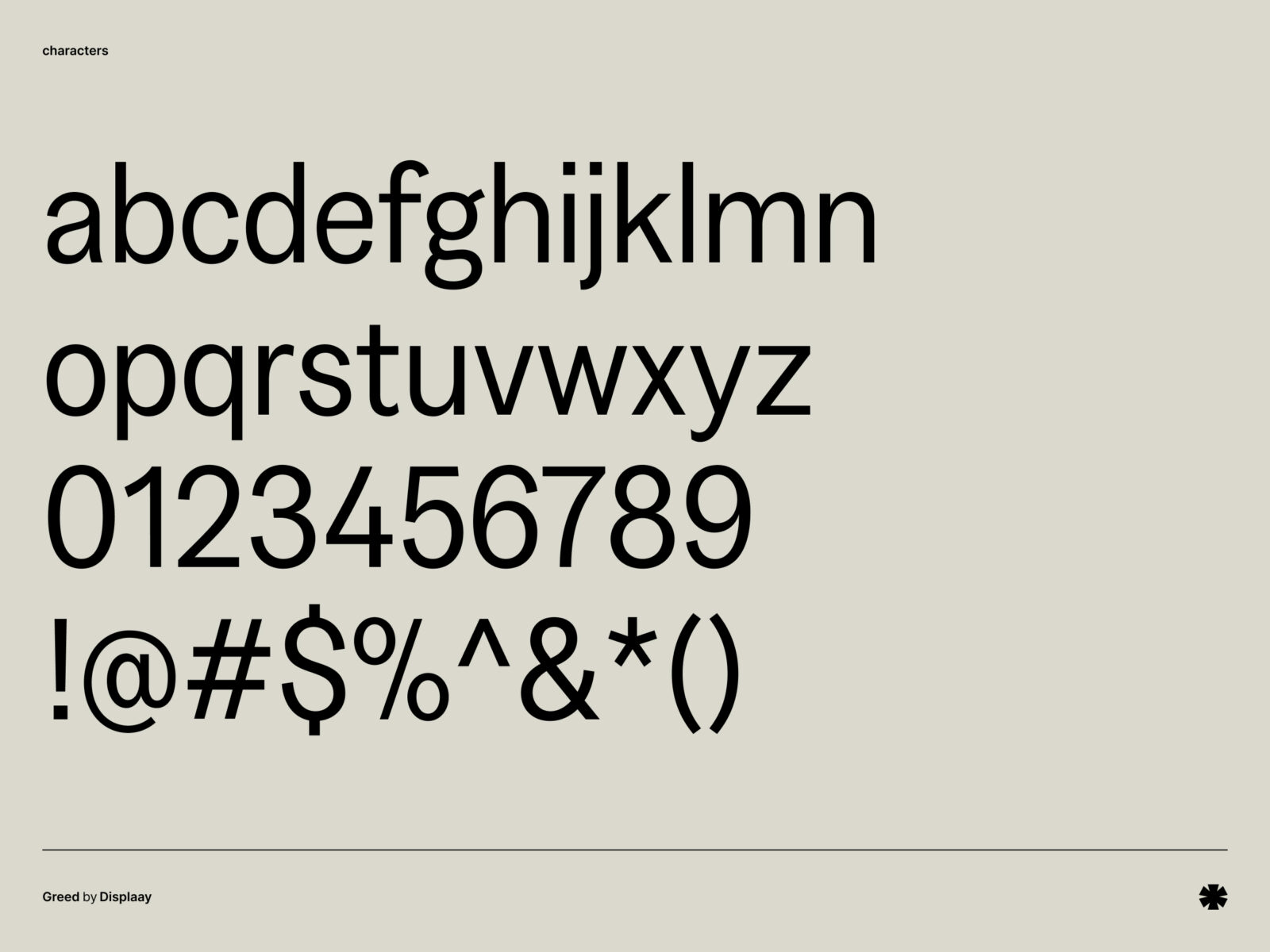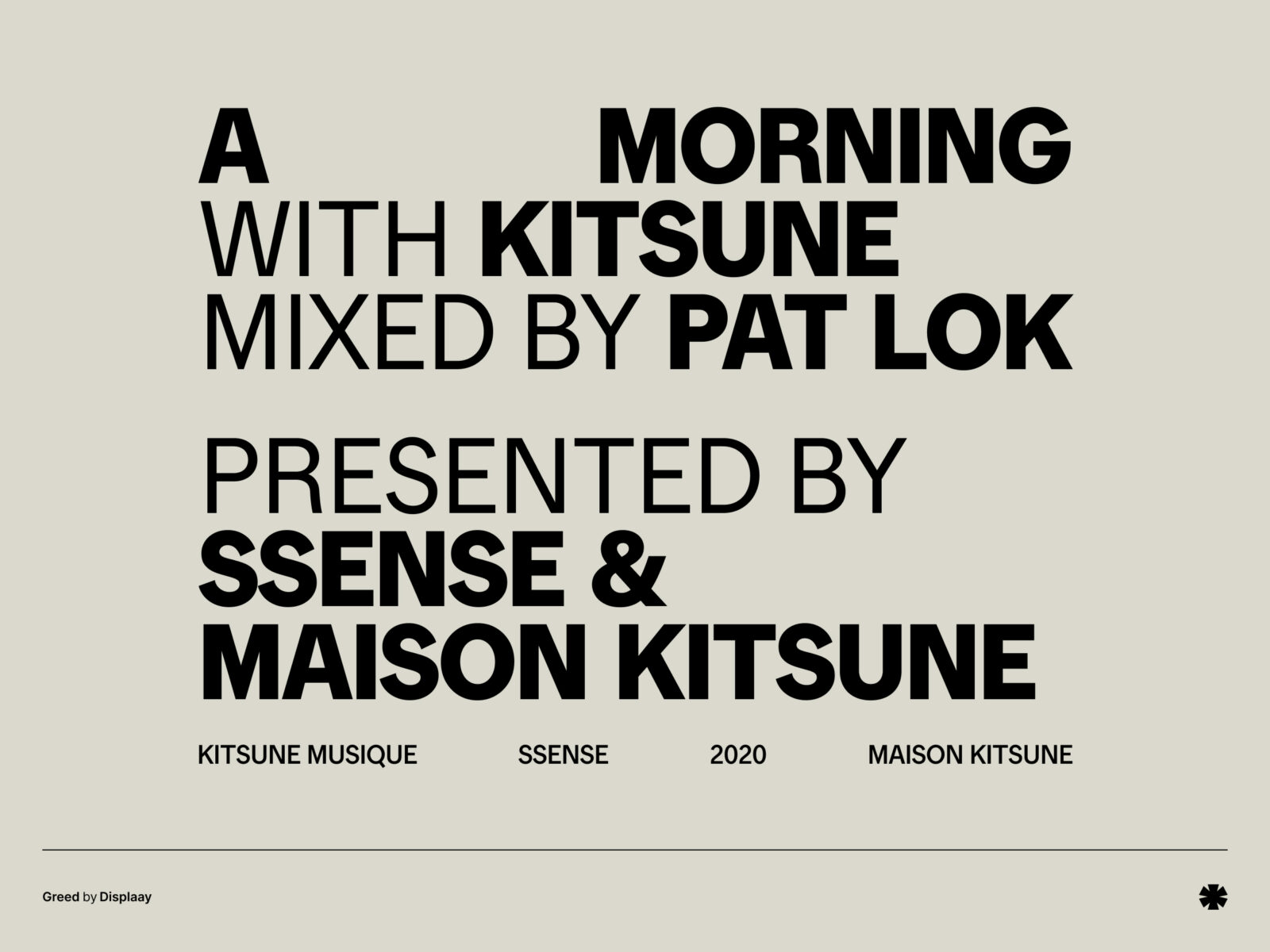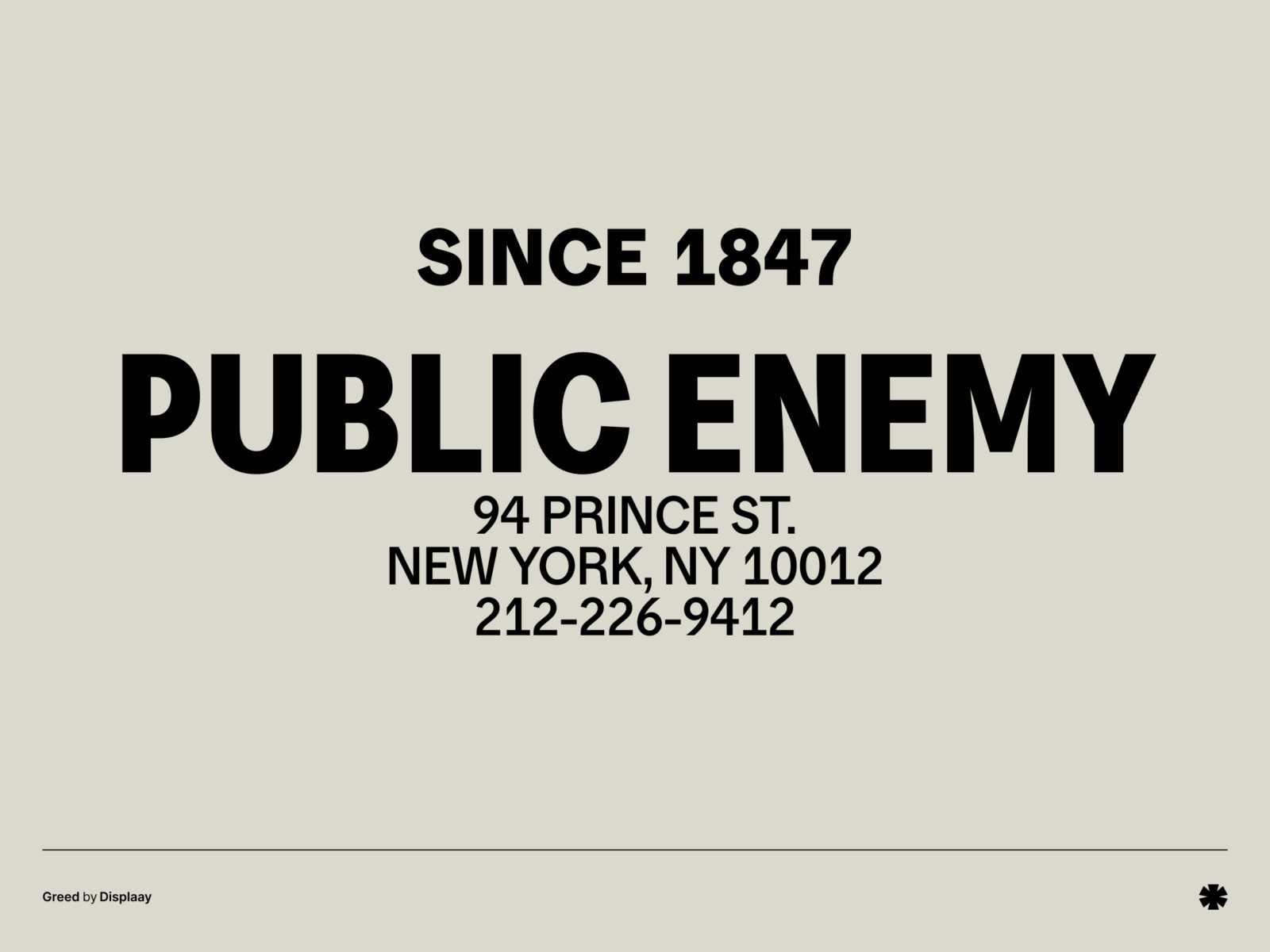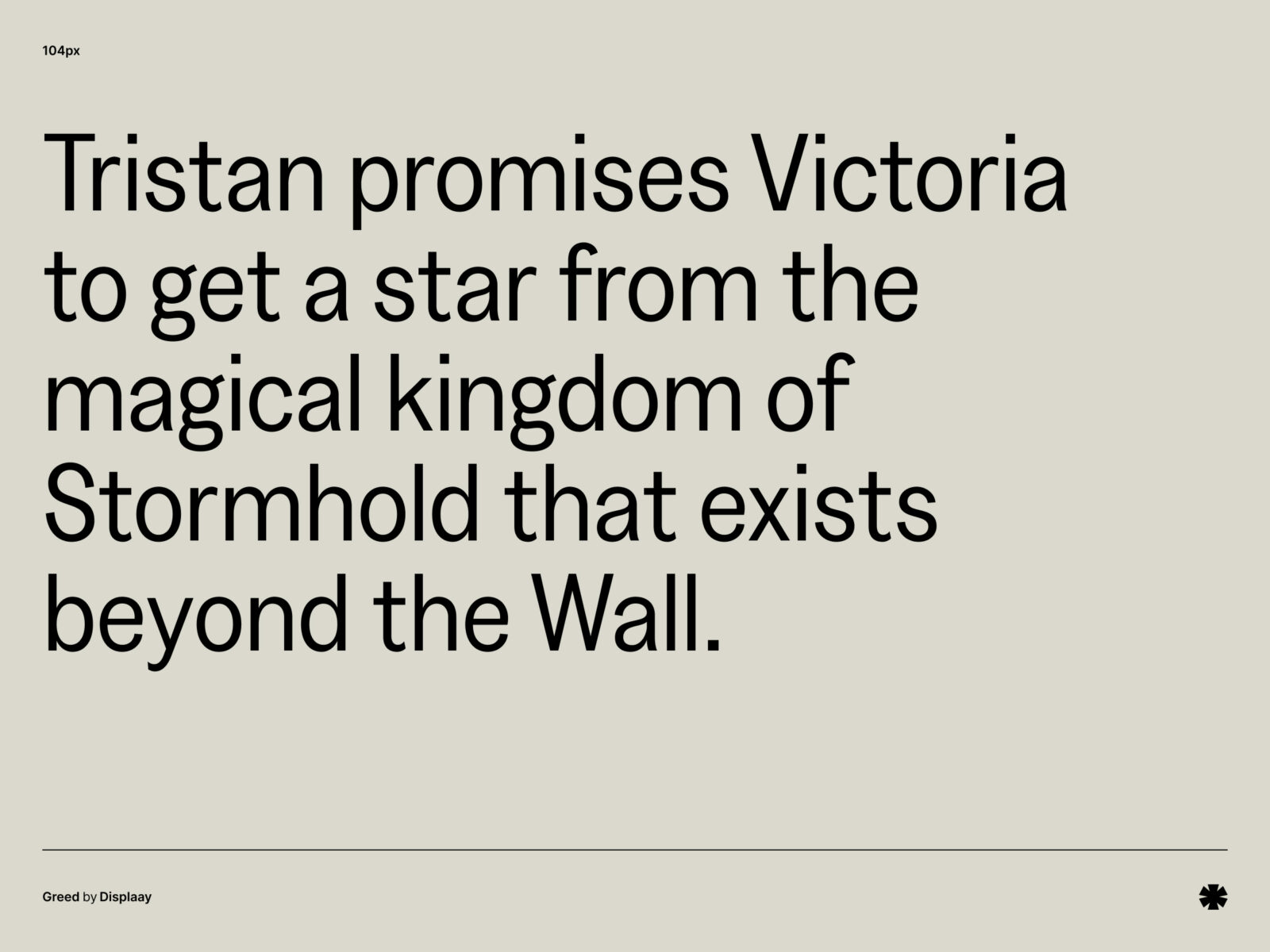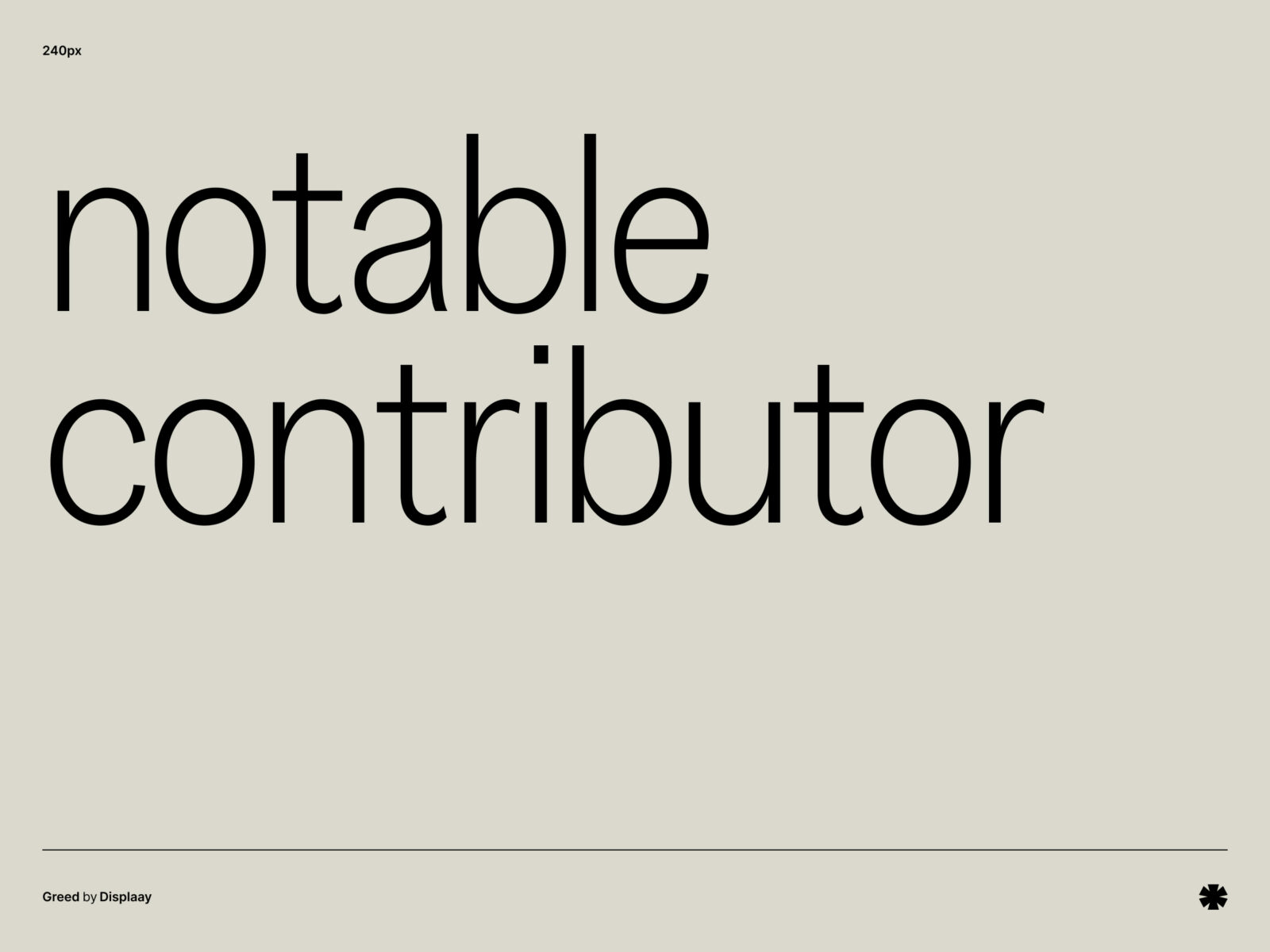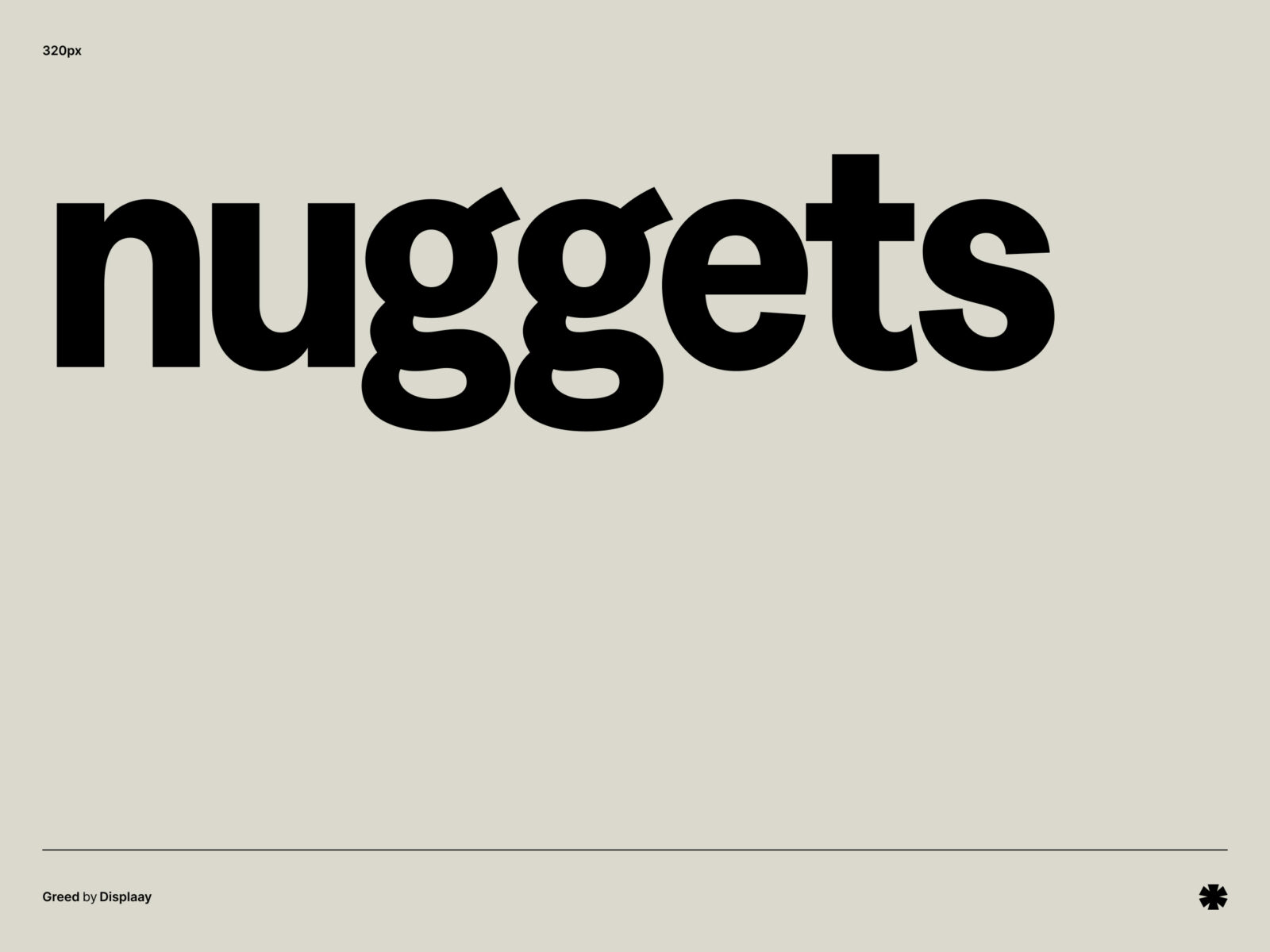
Greed is a bold, attention-grabbing font that combines sharp edges with dynamic curves. Its unique design makes it ideal for striking headlines and impactful branding, ensuring your text stands out with style.
foundry
Displaay
designer
Martin Vácha, Viktor Mizera, Igino Marini